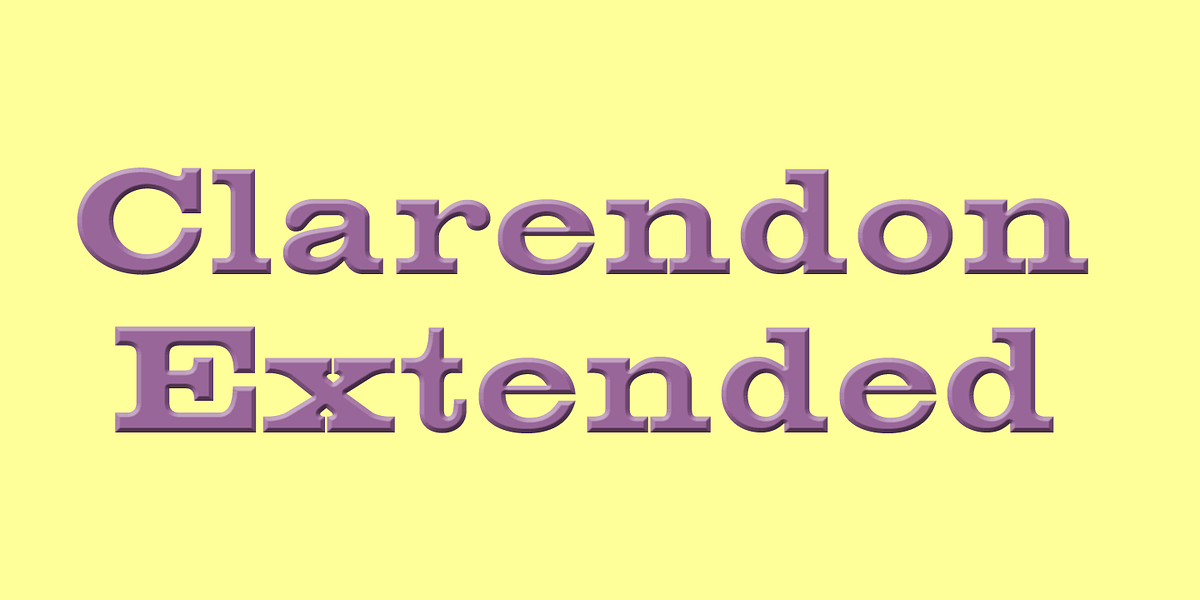
Clarendon Extended
This font is a digital recreation of a 19th-century wood type design. It's characterized by its extreme width and bold weight, giving it a strong, rustic presence. The font would be suitable for headlines, posters, or any designs aiming for a vintage aesthetic.